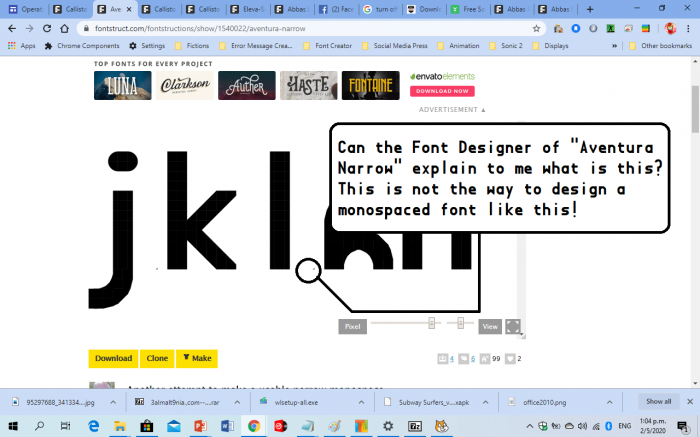
Nice font.
I have made my clone into a sans serif. But still a usable programming font.
@ Zephram Not entirely, the characters C, G, I, J, 1 making this font in fact a semi-serif, so Vienna Binders description is right. ;)
Oh, and I don't know if you intended the bottom right circle arc on Q to be offset, but it has a slight inexact outer radius when comparing it to the other circle arcs.
Nice design twist with those cut-off letter parts, but I think something went wrong with m. Now it Looks like a flipped a. I don't think this is very desirable.
M and W are the biggest problems when trying to make a monospaced font. I tried to either make the m 'stacked', to move the detail into the vertical dimension and also to make the m look a bit more m-like when surrounded by other letters. I don't think I pulled it off though.
I was pointing out to the lowercase glyph for m. Another thing, maybe you already know, this, but monospace fonts doesn't require to have all the glyphs being equal in width. It just requires the total horizontal space of each character to be equal, with the glyph center aligned within this horizontal space.
Monospaced font here.
This is not the way to design a monospaced font like this johnrgrover.
The tiny dots to the right of some characters are there so that the font will work well in Visual Studio. They are a workaround to a bug in Visual Studio.